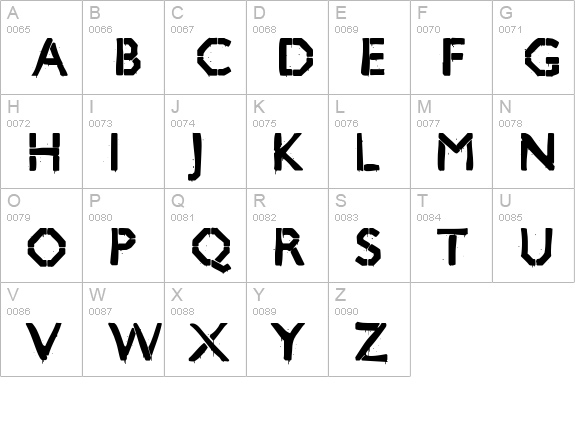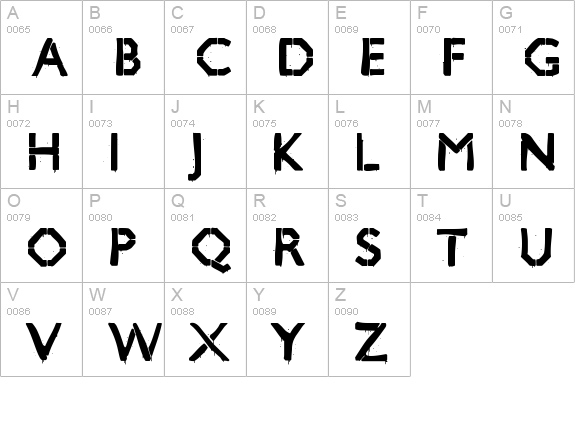
Introducing the captivating and bold Jillican Warpaint font, a unique typeface that exudes strength and individuality. Inspired by tribal art and ancient warrior markings, this font is perfect for making a powerful statement in your designs. The intricate details and sharp edges of Jillican Warpaint give it a fierce and commanding presence, making it ideal for headlines, logos, and branding projects. What sets Jillican Warpaint apart is not only its striking appearance but also its versatility. Whether you're looking to add a touch of mystique to your design or make a bold statement, this font has you covered. With its strong, angular shapes and intricate patterns, Jillican Warpaint is sure to leave a lasting impression on anyone who sees it. The best part? Jillican Warpaint is available for free download at FontsMarket.com. So go ahead and unleash your creativity with this powerful and captivating font. Let Jillican Warpaint be the warrior in your design arsenal, ready to conquer any project with its bold and commanding presence.